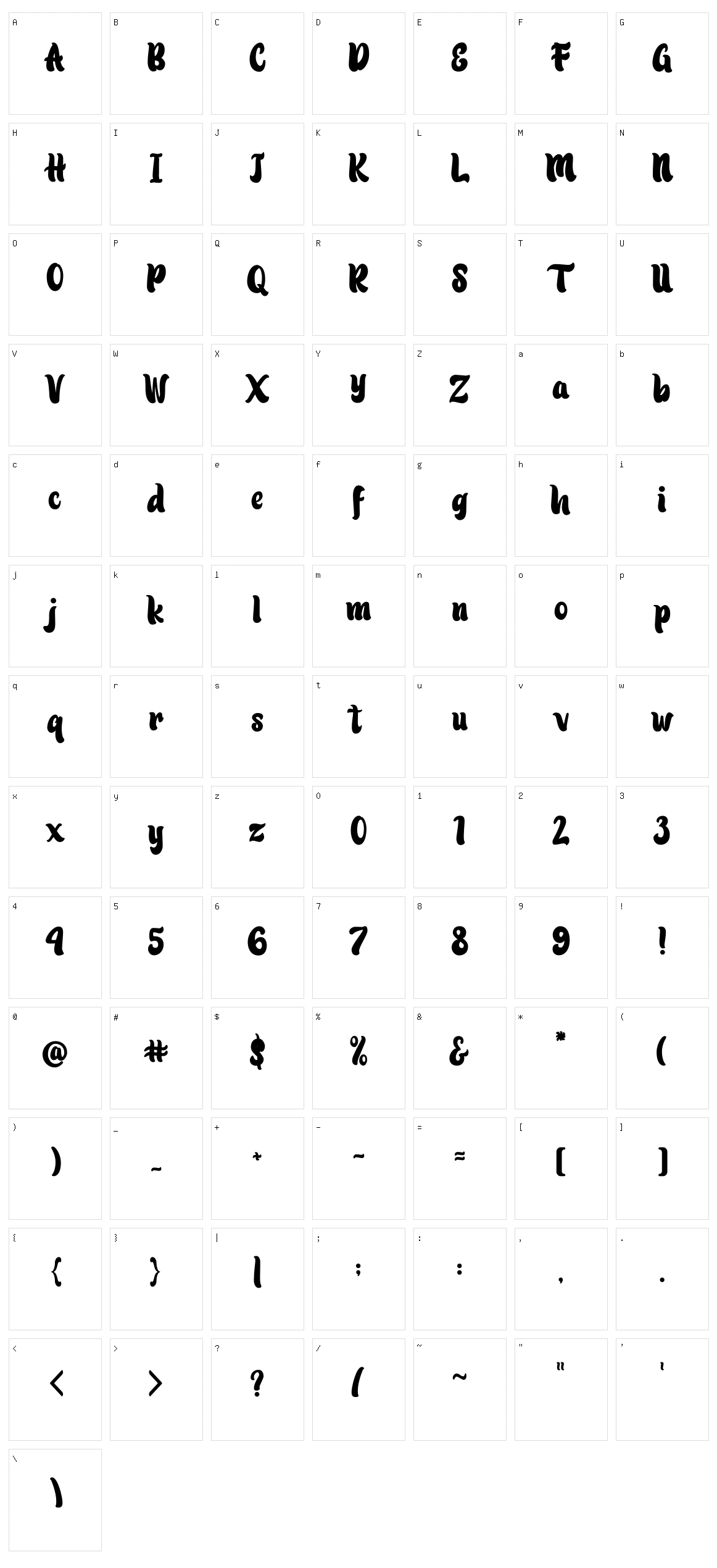
The free font Patric Zihva is carefully designed by StringLabs Creative Studio, showcasing a thoughtful balance of creativity and usability and falls under the Old-School font style. When you download the ZIP file, it contains only 117.66 KB of font files, making it lightweight and quick to download. Please review the license details below to understand permitted usage and distribution rights. If license information is not available, we recommend using this font for personal projects only or contacting the author directly for commercial usage permissions.